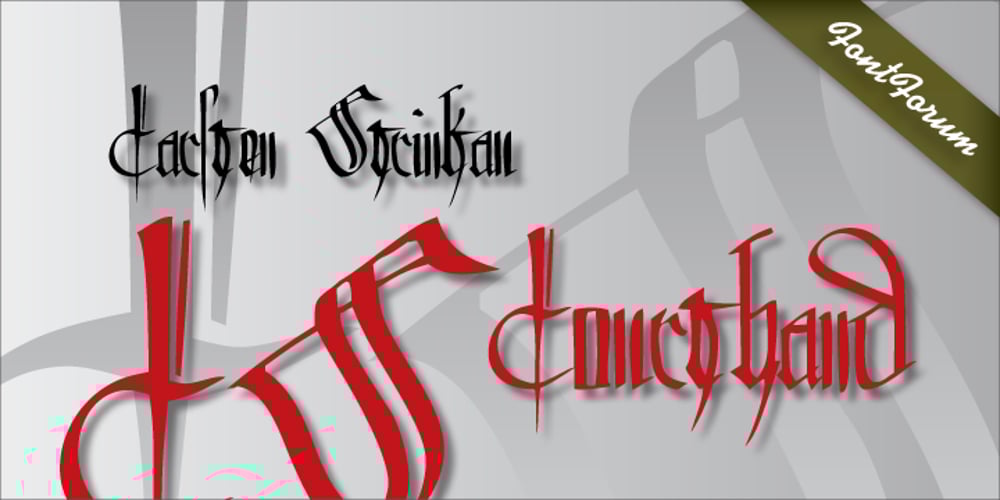
CS Courthand
CS Courthand font
CS Courthand Font Family was designed by Carsten Strinkau and published by URW Type Foundry. CS Courthand contains 1 styles and family package options. CS are the initials of Carsten Strinkau, a young German graphic and type designer who studied in Hamburg. CS Courthand is based on 16 hundred century English monks handwriting. Text in CS Courthand looks like a pattern, like a text-carpet, but still readable.